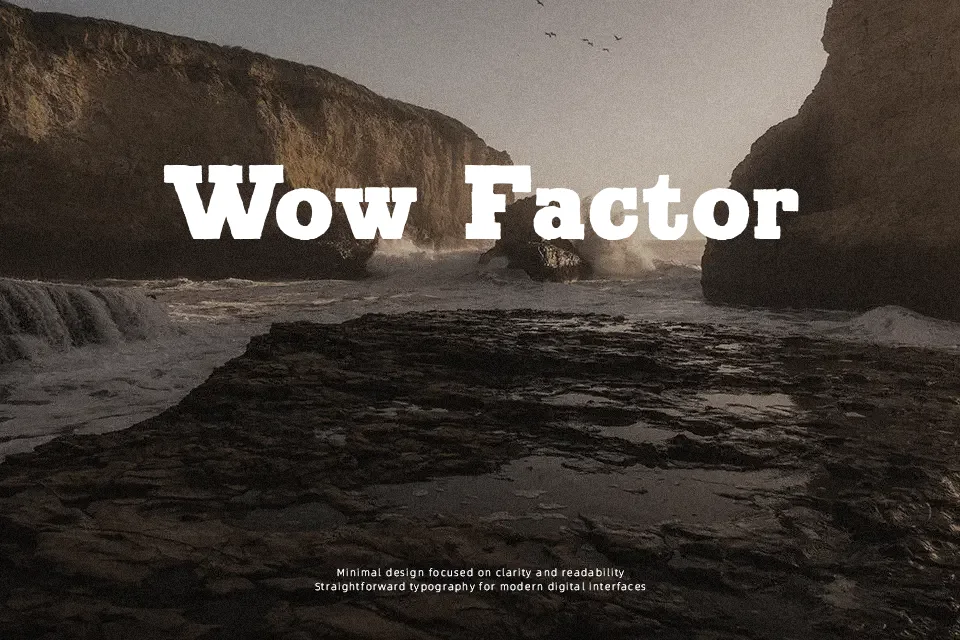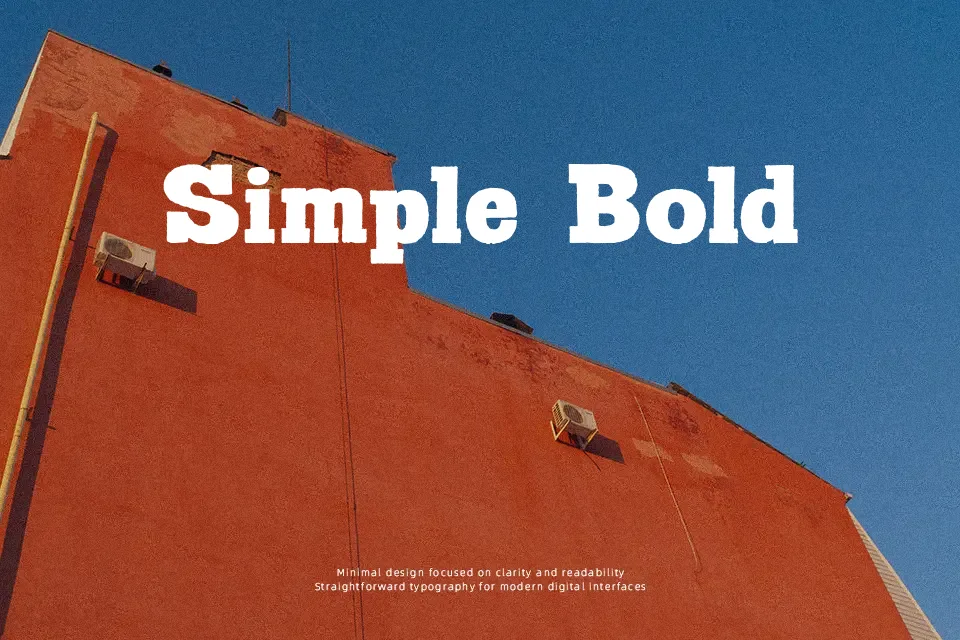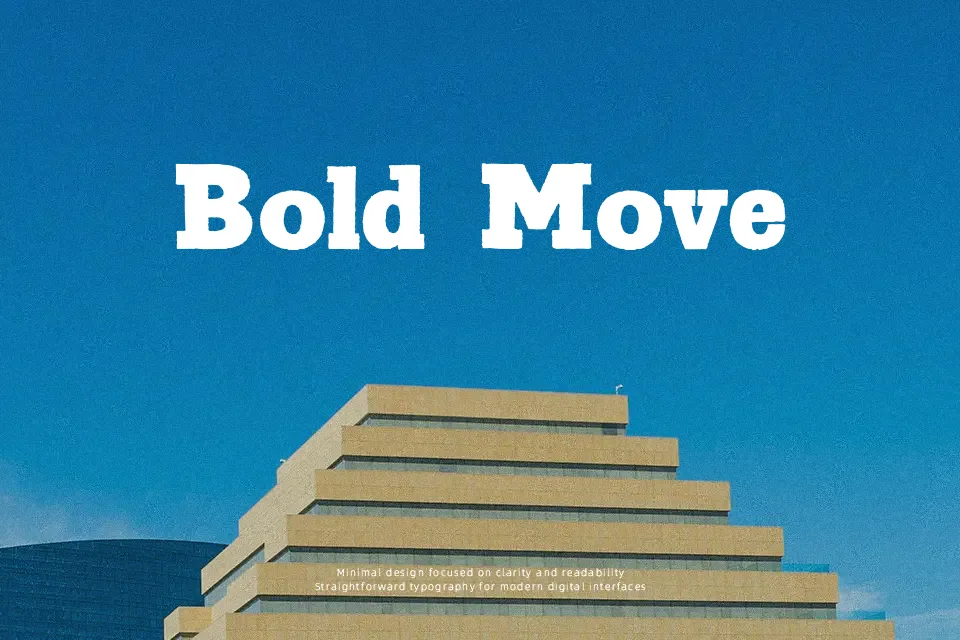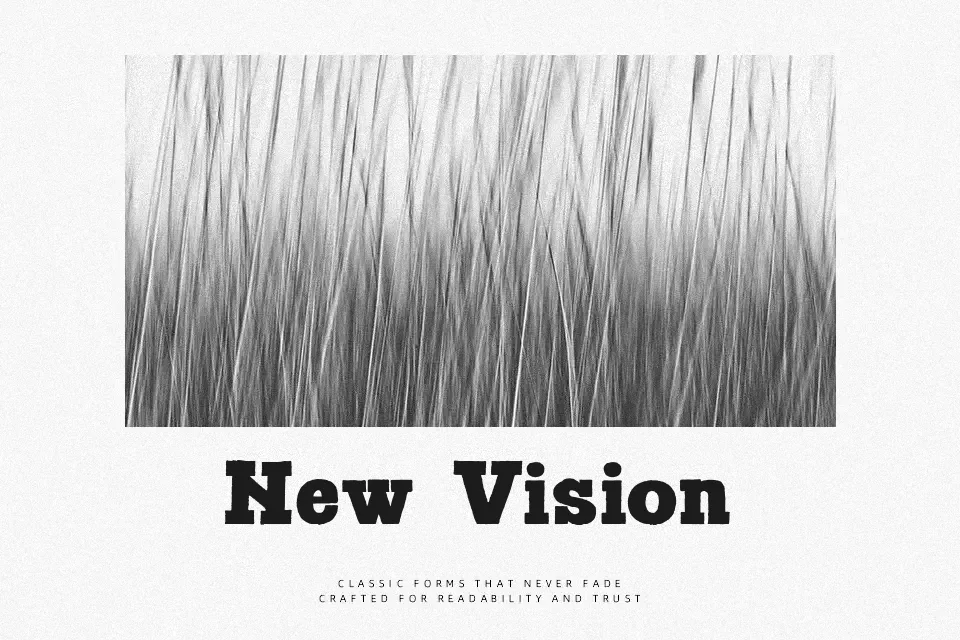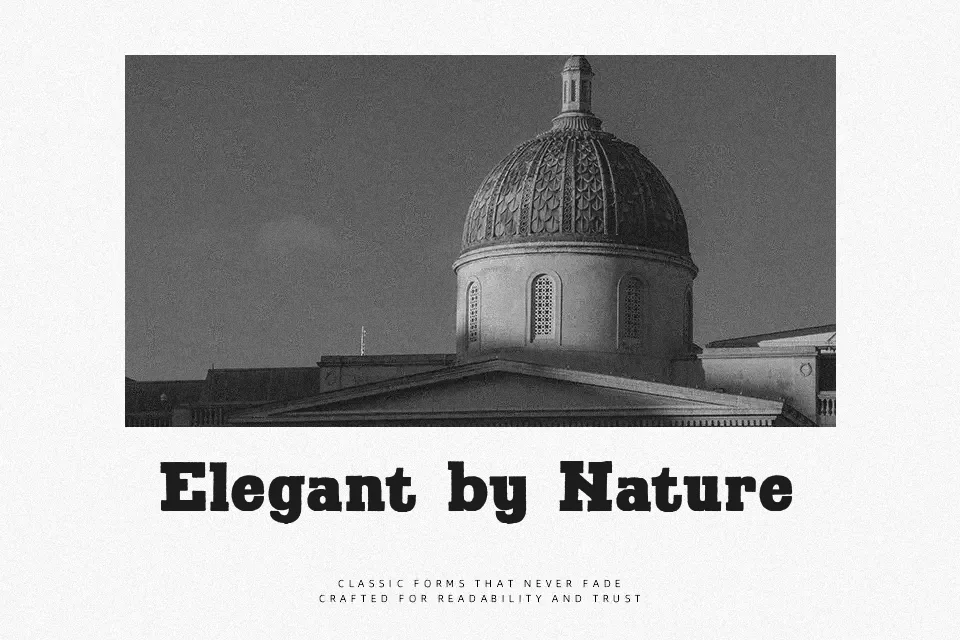
Brennan Font
Designed by Mario Arturo
Brennan is a heavy slab serif with thick strokes, low contrast, and tight, upright construction that gives text a solid, grounded presence. Its squared serifs and compact proportions lean more industrial than elegant, so it feels sturdy rather than delicate. This works especially well for short words in headlines, badges, and poster titles where you want strong impact and easy legibility from a distance. For longer paragraphs or small UI labels, the weight and dense rhythm can feel tiring, so it is better kept for display roles instead of continuous reading. If you already like vintage Western or geometric slab styles but want something a bit rougher and more utilitarian, Brennan fits neatly in that space.
Bold poster titles and flyers
Short branding wordmarks and labels
Headline text with a rugged, vintage tone
Long body text in print or web layouts
Tiny UI elements or dense data tables
Projects needing a soft or highly refined look
Perfect for advertising, branding, and gaming, with a bold and display style.